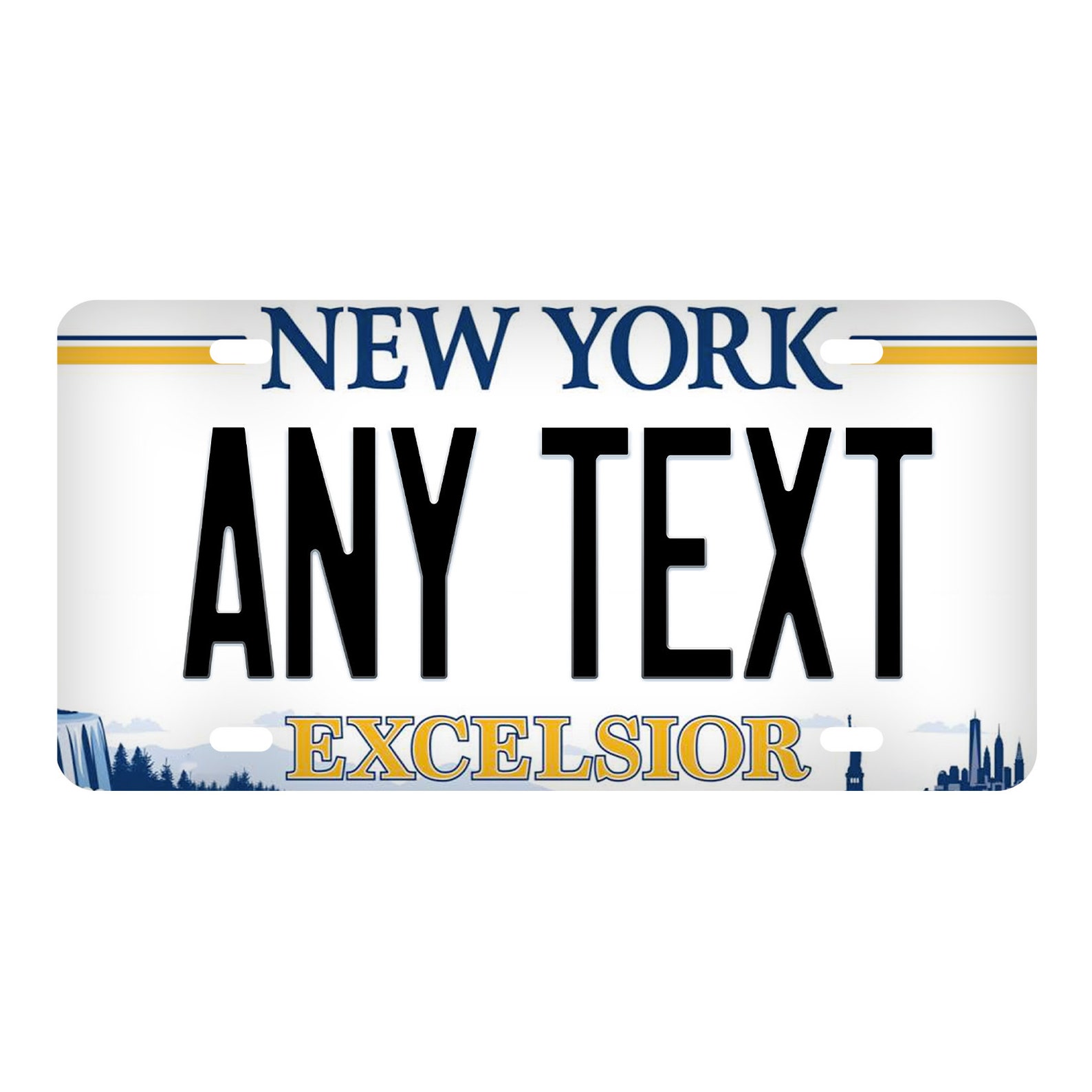
What Font Is New York License Plate . Hello, anyone recognize what font the new york and empire state is in this image of their license plates? It covers the different types of plates available, how to obtain them, and the laws and. Personalized plates are standard series plates with a combination of numbers and letters that you select for an extra yearly fee. This article provides a comprehensive guide to new york state license plates. Plus a classification scheme grouping north american auto tag fonts into 4. New york has been using two different digital fonts concurrently, one a conversion by the john r. Wald company of its own preexisting embossed font (for which the tooling was also. How the use of autocad has shaped how license plate fonts look. This font is based on the four north american font types based on curve construction/appearance, this latest version has the lowercase letters and numbers embossed.
Plus a classification scheme grouping north american auto tag fonts into 4. How the use of autocad has shaped how license plate fonts look. It covers the different types of plates available, how to obtain them, and the laws and. Wald company of its own preexisting embossed font (for which the tooling was also. This article provides a comprehensive guide to new york state license plates. Hello, anyone recognize what font the new york and empire state is in this image of their license plates? New york has been using two different digital fonts concurrently, one a conversion by the john r. This font is based on the four north american font types based on curve construction/appearance, this latest version has the lowercase letters and numbers embossed. Personalized plates are standard series plates with a combination of numbers and letters that you select for an extra yearly fee.
What Font Is New York License Plate This font is based on the four north american font types based on curve construction/appearance, this latest version has the lowercase letters and numbers embossed. New york has been using two different digital fonts concurrently, one a conversion by the john r. How the use of autocad has shaped how license plate fonts look. This article provides a comprehensive guide to new york state license plates. Plus a classification scheme grouping north american auto tag fonts into 4. Personalized plates are standard series plates with a combination of numbers and letters that you select for an extra yearly fee. Hello, anyone recognize what font the new york and empire state is in this image of their license plates? Wald company of its own preexisting embossed font (for which the tooling was also. This font is based on the four north american font types based on curve construction/appearance, this latest version has the lowercase letters and numbers embossed. It covers the different types of plates available, how to obtain them, and the laws and.